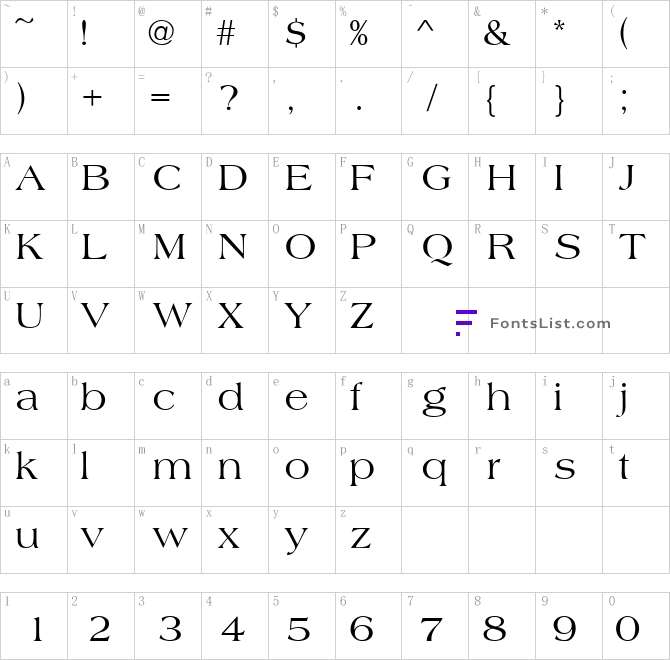
- Font Name:Amherst
Amherst.ttf is a very beautiful artistic font, Amherst.ttf is widely used in the design and printing of various books and pictures,Amherst.ttf has a strong visual impact,Amherst.ttf is a commonly used font in newspapers, magazines and books, and is used in posters, e-commerce Poster design, store design, logo design, font design and other fields.Amherst.